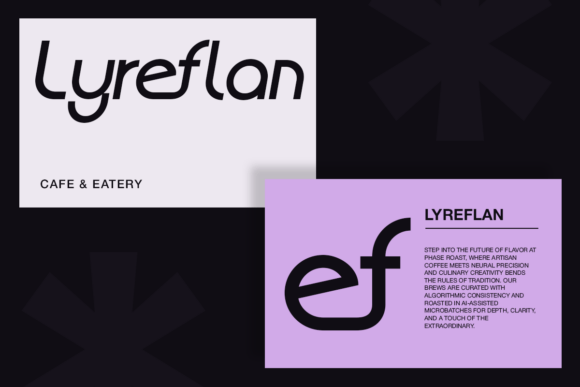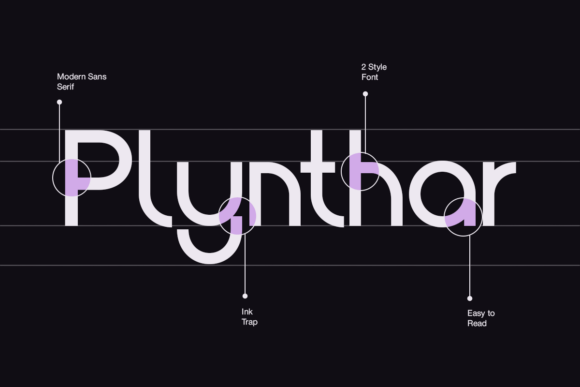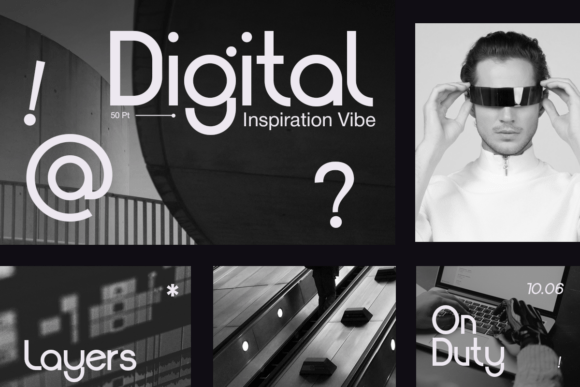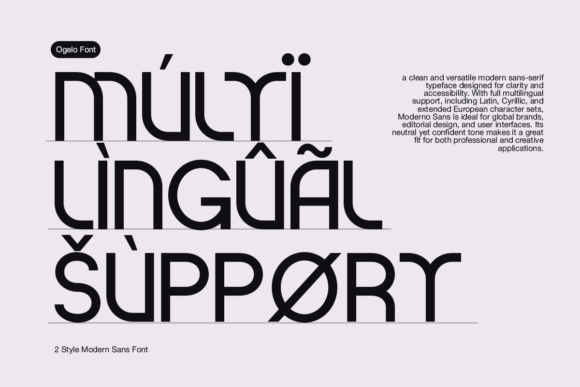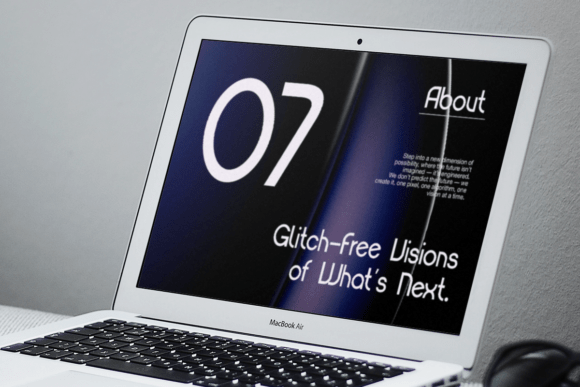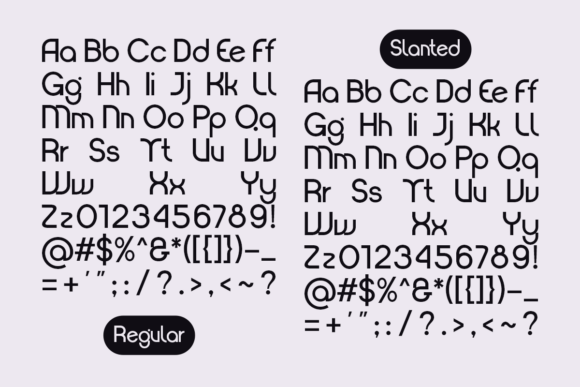
Introduction to Ogelo Font
Remember the thrill of discovering a new design resource that elevates your creative project to the next level? For many designers, that moment is a game-changer, and it’s what makes the process of bringing ideas to life so exciting. Recently, I had the pleasure of stumbling upon the Ogelo Font, a soft and friendly rounded sans-serif font that has become an instant favorite in my design toolkit.
What sets Ogelo Font apart is its unique blend of geometric shapes and modern character, making it the perfect addition to any project. Whether you’re working on a lifestyle brand, editorial design, or UI project, Ogelo Font offers versatility and charm through its approachable letterforms. With both Regular and Slanted styles, this font is equipped to handle a wide range of creative projects, from print to digital environments.
- Unique characteristics: Distinctive, modern design and a wide range of stylistic variations, making it suitable for various creative projects.
Honest Review: Ogelo Font
As a designer, I’m always on the lookout for high-quality design resources to enhance my creative projects. Recently, I had the chance to work with the Ogelo Font, and I must say, it’s been a pleasant experience.
Here’s what works well:
- ✨ The Ogelo Font has a modern and sleek design that’s perfect for various creative projects, from logos to typography-based designs.
- ✨ The font is highly versatile and can be used in a wide range of applications, from digital to print media.
Overall, I’m impressed with the Ogelo Font’s quality and versatility. While it has some limitations, it’s a solid addition to any designer’s toolkit. If you’re looking for a modern and sleek font for your creative project, I’d definitely recommend giving Ogelo Font a try.
To get the most out of the Ogelo Font, use it in conjunction with a transparent background to create a high-quality design. You can also experiment with different font sizes and styles to add visual interest to your project.
The Ogelo Font is ideal for use in creative projects such as branding, marketing materials, and digital graphics. It is also suitable for use in presentations, documents, and websites.